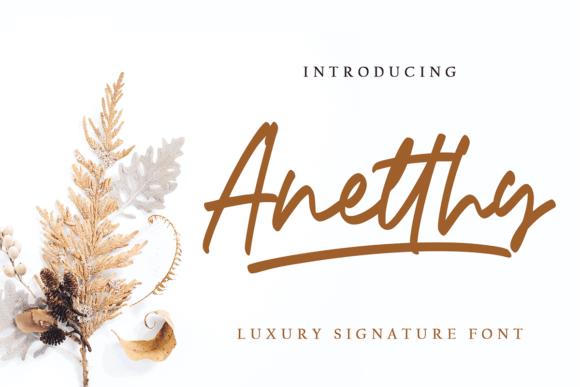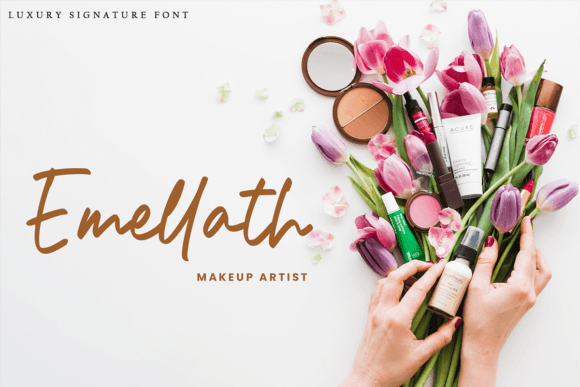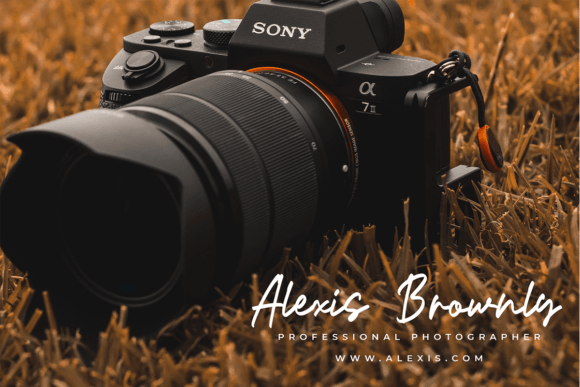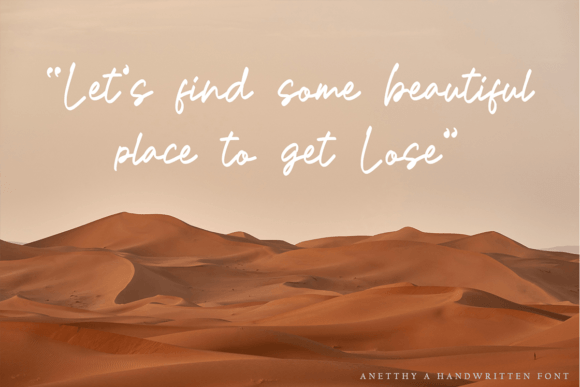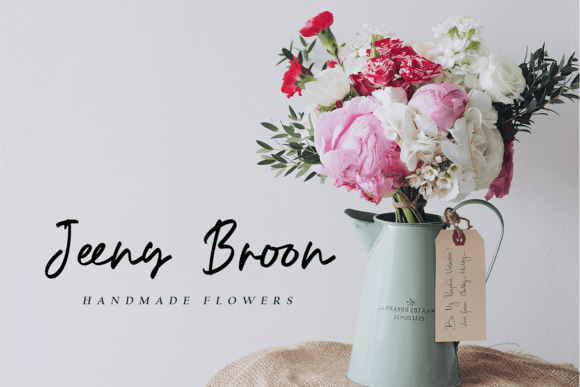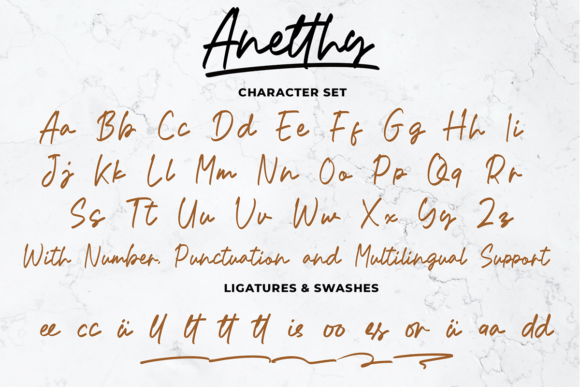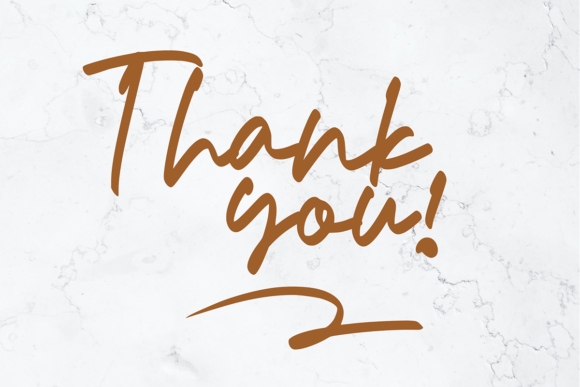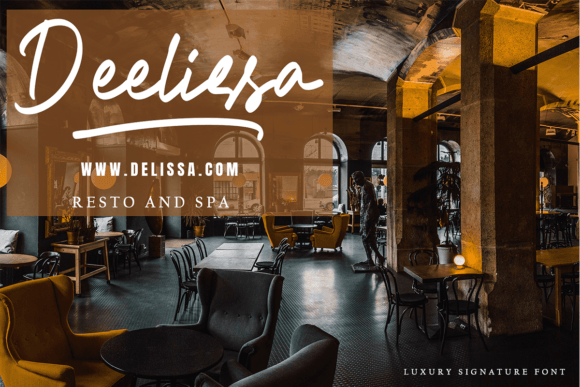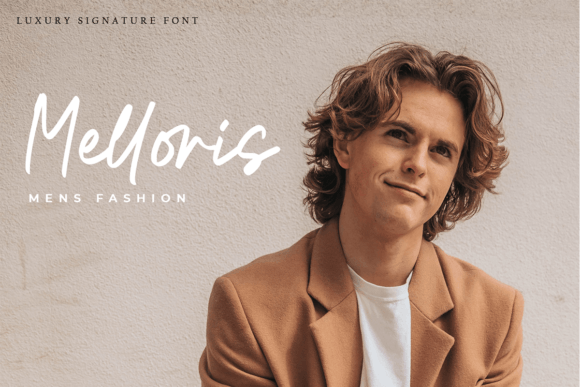
Anetthy Font
About Anetthy Font
**Anetthy** is a font that effortlessly combines sweetness with beauty, creating a design that is both charming and visually captivating. Its handwritten style exudes warmth, making it an ideal choice for a wide array of creative projects. Whether you’re working on logos, greeting cards, posters, book covers, or any other design, **Anetthy** adds a touch of elegance and personality, making your projects truly memorable.
One of the standout features of **Anetthy** is its sweet and inviting aesthetic. The font’s soft curves and gentle strokes give it a delightful charm, evoking a sense of friendliness and approachability. Its handwritten quality adds a personal touch to your designs, making them feel warm and welcoming.
The versatility of **Anetthy** makes it suitable for various applications. Whether used for a playful logo, heartfelt greeting card, eye-catching poster, or captivating book cover, **Anetthy** adapts seamlessly to different design contexts. Its ability to convey a sense of sweetness and beauty makes it a go-to choice for projects that require a touch of charm and elegance.
**Anetthy** goes beyond being just a font; it’s an expression of creativity and emotion. Its sweet and beautiful design evokes positive feelings and leaves a lasting impression on viewers. By incorporating **Anetthy** into your designs, you infuse them with a sense of joy and appeal that resonates with your audience.
With **Anetthy** in your fonts library, you have a versatile tool at your fingertips, ready to enhance any project with its delightful charm. Embrace the sweetness and beauty of **Anetthy**, and watch your designs come to life with an irresistible allure that captures hearts and leaves a lasting impact.